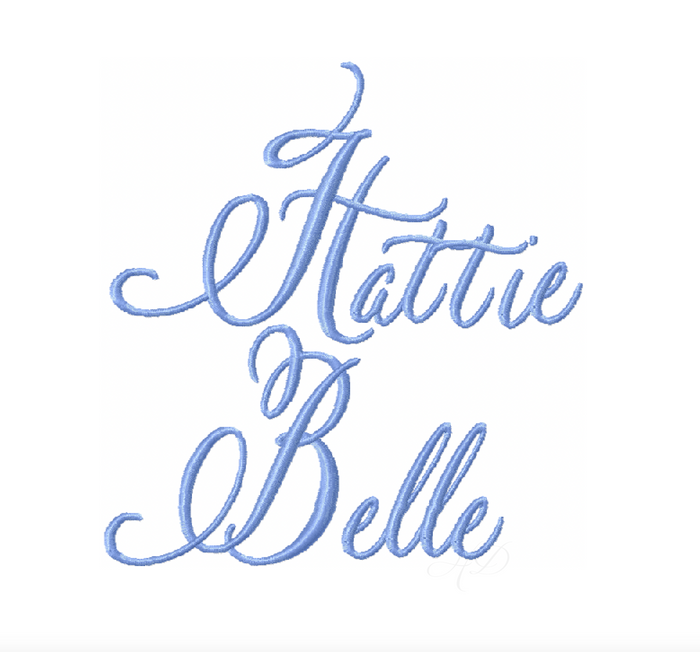
Hattie Belle Script Embroidery Font 4x4 - Elegant Design
Unlock your creativity with the Hattie Belle 4x4 Script Embroidery Font, a stunning satin stitch font designed specifically for embroidery machines. Perfect for crafters and DIY enthusiasts, this versatile font is ideal for monogramming projects, adding a touch of elegance to your crafts.